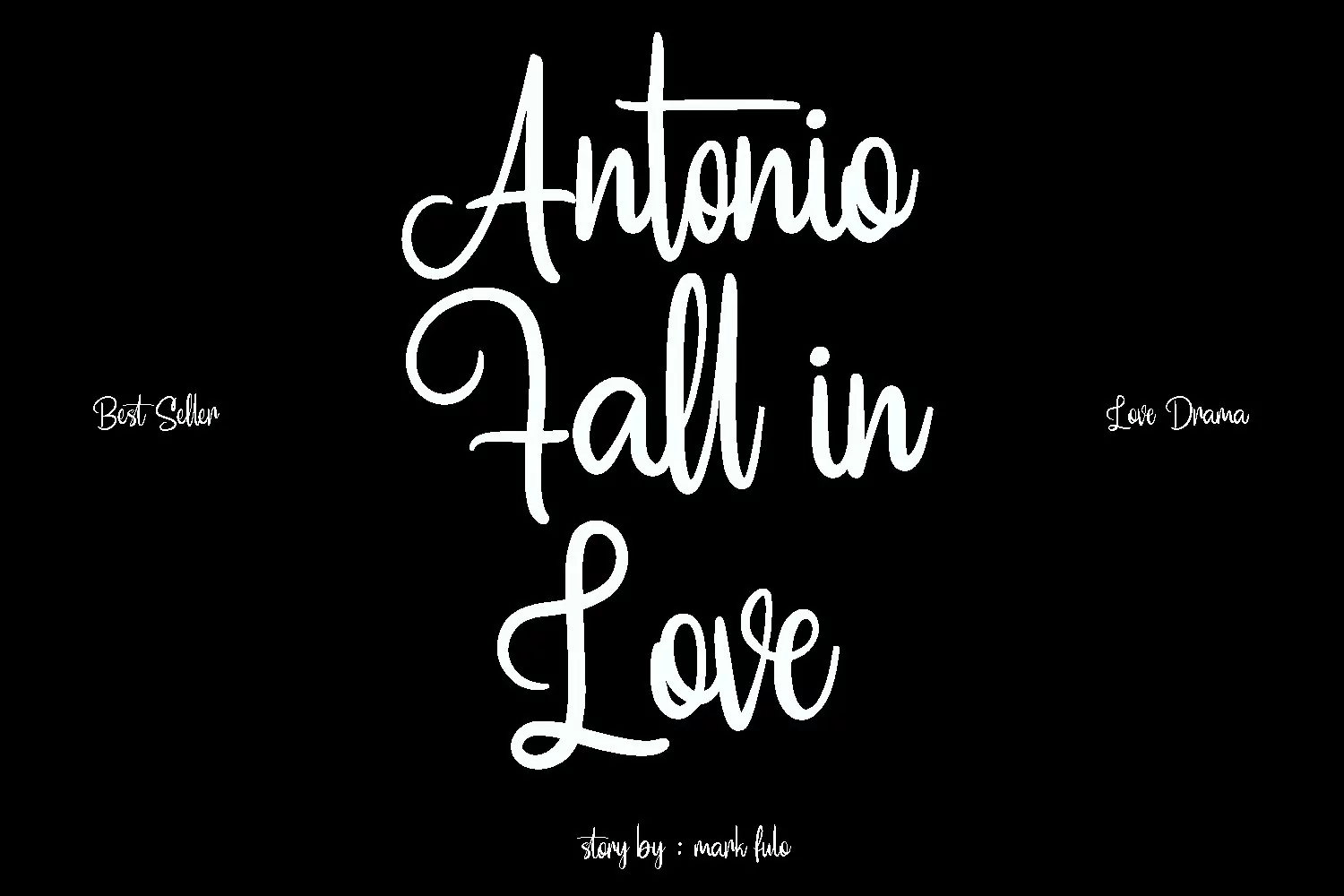
Marchestor is a handwritten script font. With regular stroke, fun character with a bit of ligatures and alternates. To give you an extra creative work. Marchestor font support multilingual more than 100+ language. This font is good for logo design, Social media, Movie Titles, Books Titles, a short text even a long text letter and good for your secondary text font with sans or serif. Make a stunning work with Marchestor font.
Marchestor